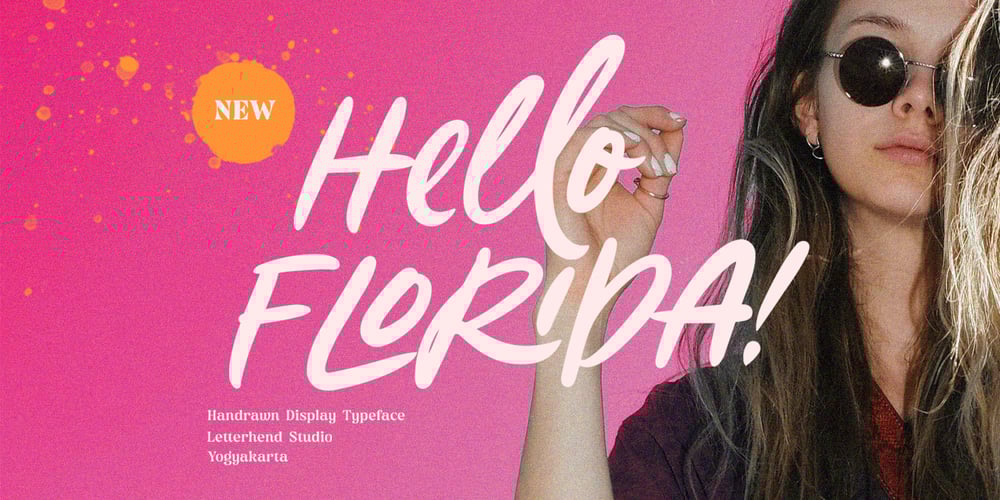
Hello Florida
Hello Florida font
Hello Florida Font Family was designed by Hendry Juanda and published by Letterhend. Hello Florida contains 1 styles and family package options. Hello Florida is a handwritten font with modern and casual feel. Suitable to be used as tagline, quotes, slogan, title, etc. This font perfectly made to be applied especially in logo, and the other various formal forms such as invitations, labels, logos, magazines, books, greeting / wedding cards, packaging, fashion, make up, stationery, novels, labels or any type of advertising purpose.Features : uppercase & lowercase numbers and punctuation multilingual ligatures alternates swashes PUA encoded We highly recommend using a program that supports OpenType features and Glyphs panels like many of Adobe apps and Corel Draw, so you can see and access all Glyph variations.